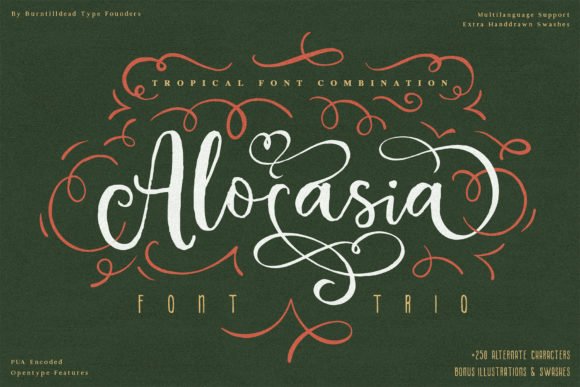
The Perfect Font for Your Creative Vision
Have you ever stared at a blank page, waiting for the perfect font to spark your creativity? You know, that moment when everything falls into place, and your design comes alive? For designers, this is a familiar feeling, but finding the right font can be a challenge. That’s where the Alocasia Font comes in – a game-changing trio font that combines the elegance of serif, the simplicity of sans, and the flair of script.
This versatile font is designed to elevate your designs to new heights, making it a valuable asset for any creative project. With its PUA encoding, you can access all the glyphs and swashes with ease, adding a touch of sophistication to your work. Whether you’re working on a logo, brochure, or website, the Alocasia Font is sure to make your designs shine.
- Unique Characteristics: Alocasia Font is a highly stylized, hand-drawn font with a unique blend of modern and vintage elements, featuring intricate details and organic shapes
Alocasia Font Review
Alocasia Font is a beautiful, elegant font that exudes sophistication and refinement. It works well in situations where a classic, timeless feel is desired.
- ✨ Alocasia Font has a very high level of readability, making it suitable for body text as well as headings.
- ✨ The font’s classic design makes it easy to pair with a wide range of other fonts and styles.
- ✨ Alocasia Font is highly versatile, suitable for use in a variety of contexts, from branding and advertising to publishing and digital media.
However, there are a few limitations to consider.
- ⚠️ Alocasia Font may not be the best choice for bold, attention-grabbing headlines, as its classic design can make it appear too understated in these situations.
- ⚠️ The font may not be ideal for use in very small sizes, as its delicate details can become difficult to read at these scales.
Overall, I think Alocasia Font is a solid choice for anyone looking for a classic, elegant font that is easy to read and pair with other styles.
To get the most out of Alocasia Font, use it sparingly to add emphasis and create visual interest. Common use cases include:
- Home decor and interior design
- Magazine and newspaper headings